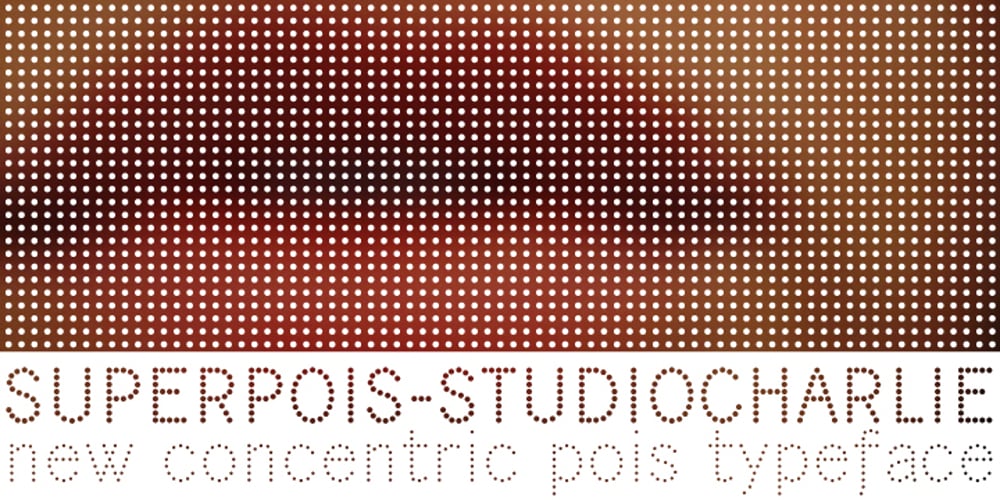
Superpois
Superpois font
Superpois Font Family was designed by Carla Scorda, Vittorio Turla and published by studiocharlie. Superpois contains 3 styles and family package options. Developed from Superbastone and designed to be used with all the weights of Superbastone. The letters are designed with “pois” of three different diameters. You can overlap the different weights and all the pois will be concentric. Superpois is designed in three versions.